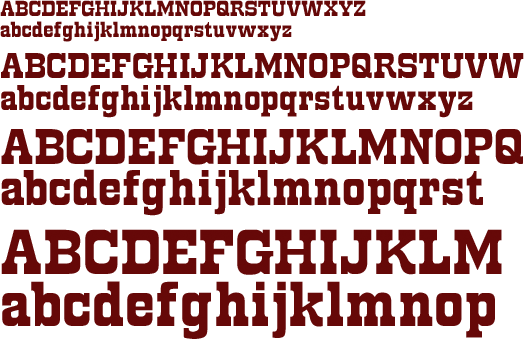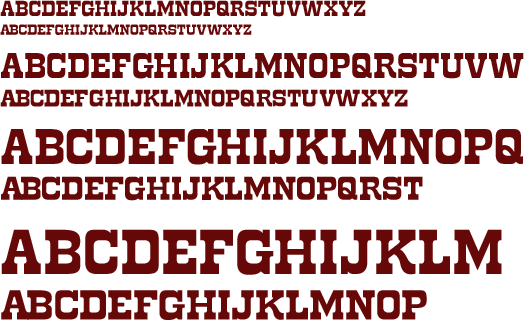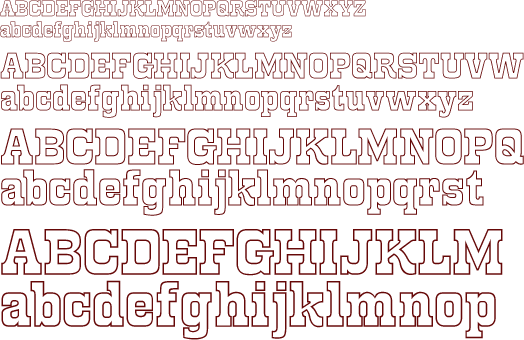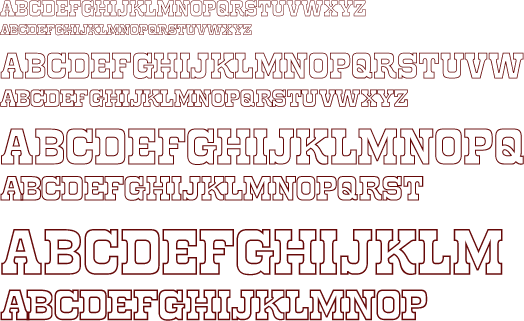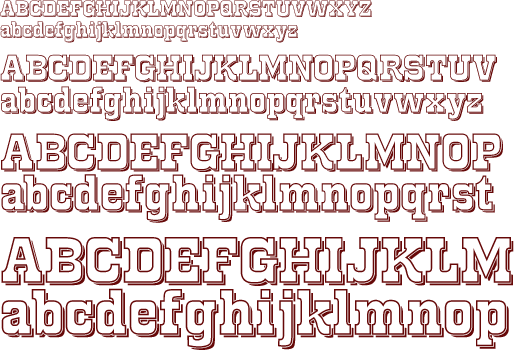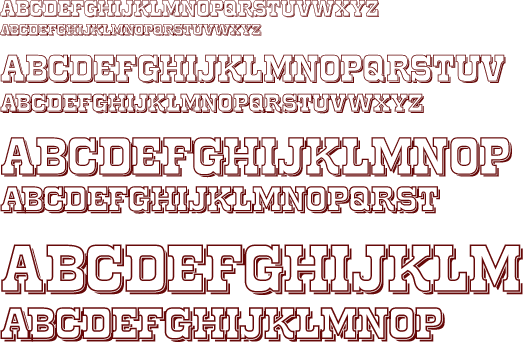
Big Thunder™ by David Occhino
A font from the Wild West with sturdy serifs and thick lines.
Western font - Big Thunder Mountain Railroad font - by David Occhino Design
Character Set
Big Thunder has a set of 240 glyphs.
• Latin A-Z, a-z
• Complete punctuation
• International characters
• Mathematical symbols
Big Thunder font sample
Samples
• Big Thunder Regular
Big Thunder Regular
• Big Thunder Small Caps
Big Thunder Small Caps
• Big Thunder Outline
Big Thunder Outline
• Big Thunder Outline Small Caps
Big Thunder Outline Small Caps
• Big Thunder Bevel
Big Thunder Bevel
• Big Thunder Bevel Small Caps
Big Thunder Bevel Small Caps
Additional Samples
• The following type specimens use all six styles of the Big Thunder typeface family.
Western font - Big Thunder font samples
Big Thunder™ was designed by artist David Occhino.